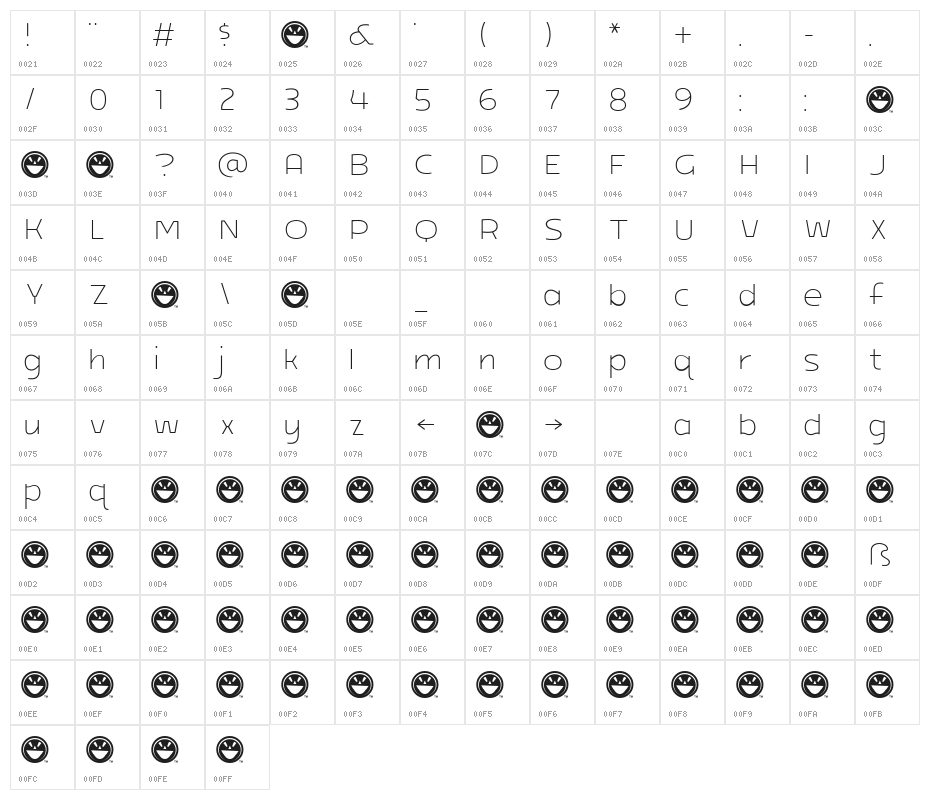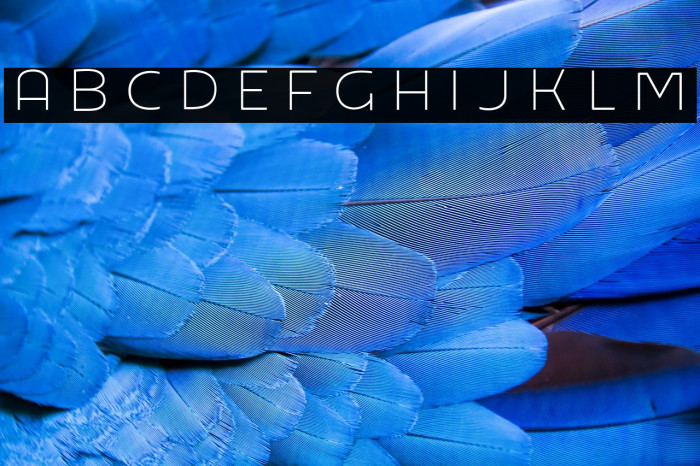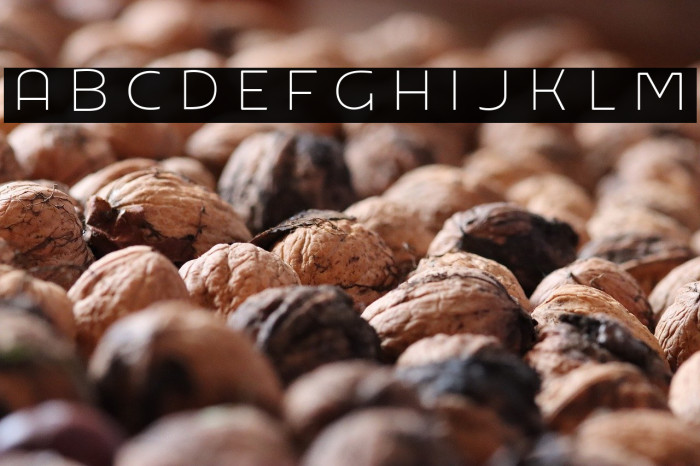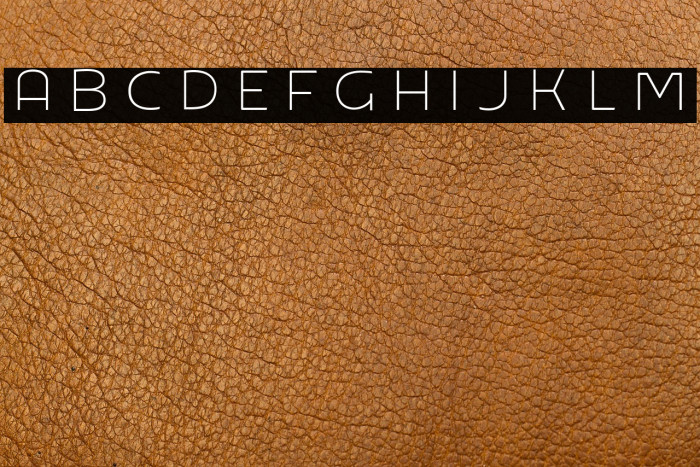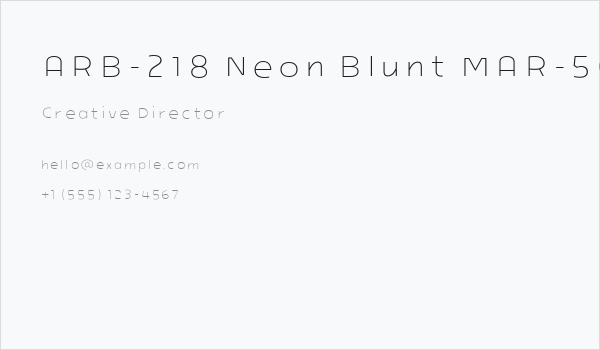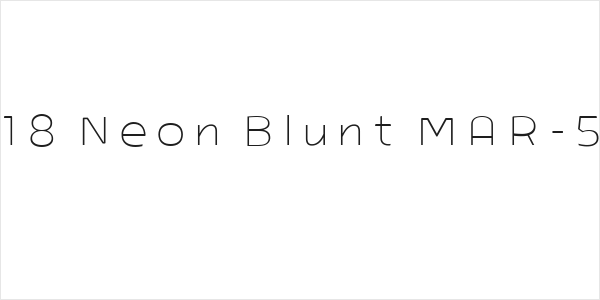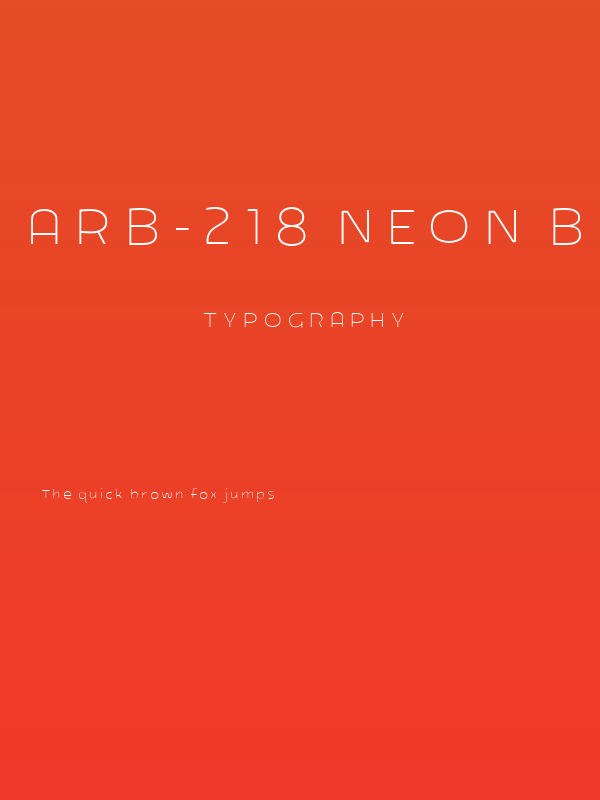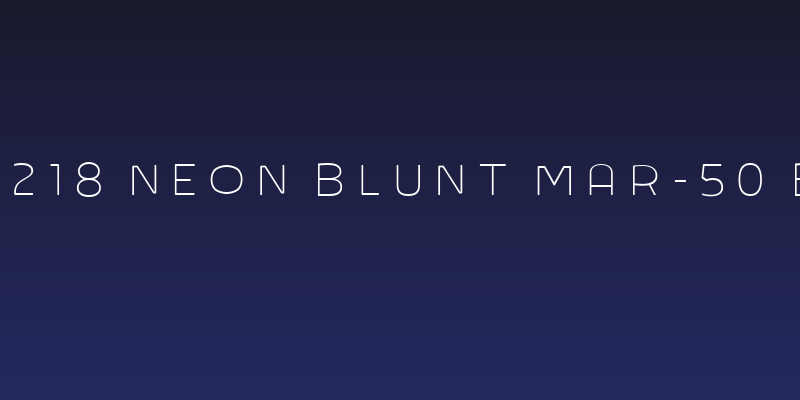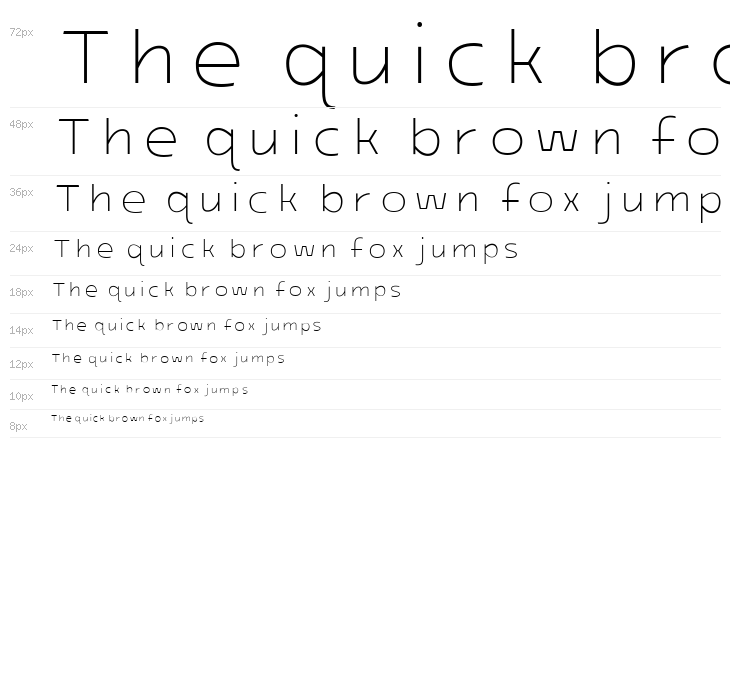
ARB-218 Neon Blunt MAR-50 Bold Font
ARB-218 Neon Blunt MAR-50 Bold Description
This font features a clean and modern design with rounded edges and a geometric structure. The characters are evenly spaced, providing a balanced and harmonious appearance. The uppercase and lowercase letters maintain a consistent style, with a slight variation in stroke width that adds subtle interest without compromising readability. The numerals are clear and straightforward, matching the overall aesthetic. Special characters are included, maintaining the same rounded and minimalist design. This font is versatile, suitable for both digital and print media, and can be used in various contexts where a modern and approachable look is desired.
Proposed ProjectsIdeal for branding, web design, advertising, and user interfaces.